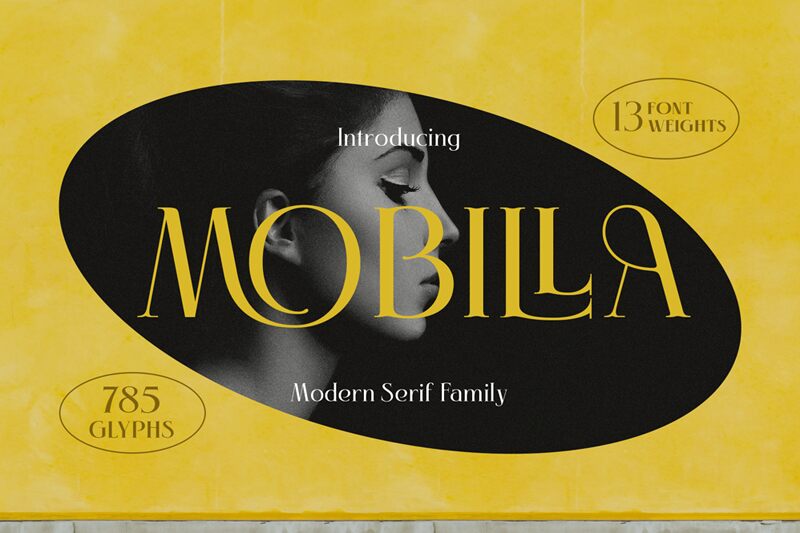
Mobilla, the modern serif font designed by Alit Design, is the perfect typography choice for projects that require a touch of sophistication and elegance. Its semi-light weight makes it ideal for creating visually stunning headlines and subheadings that demand attention. This font typeface boasts unique details and beautifully crafted serifs that add a touch of personality to any project. Its versatility makes it suitable for various design projects such as branding, editorial design, packaging design, web design, and much more. Elevate your designs to the next level with Mobilla - the perfect blend of modernity and classic sophistication.
Mobilla